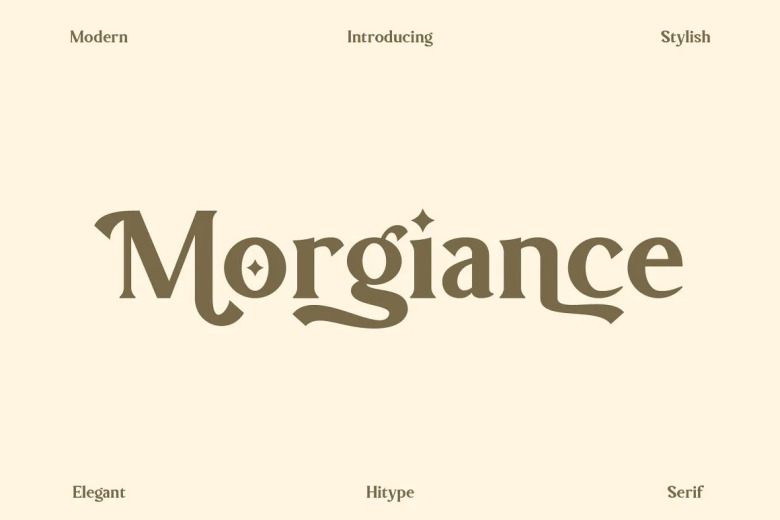
Morgiance Font
Morgiance is a very sophisticated charming serif. It specially designed for luxury projects, elegant projects feminine projects are a perfect fit. This modern chic font is suitable for any modern design such as a logo, design, poster, packaging, brand, invitation, and much more. Open-type features can be accessed by certain programs or software with the Open-type features and Glyps panel such as illustrator, Photoshop, etc.
Morgiance Serif Font